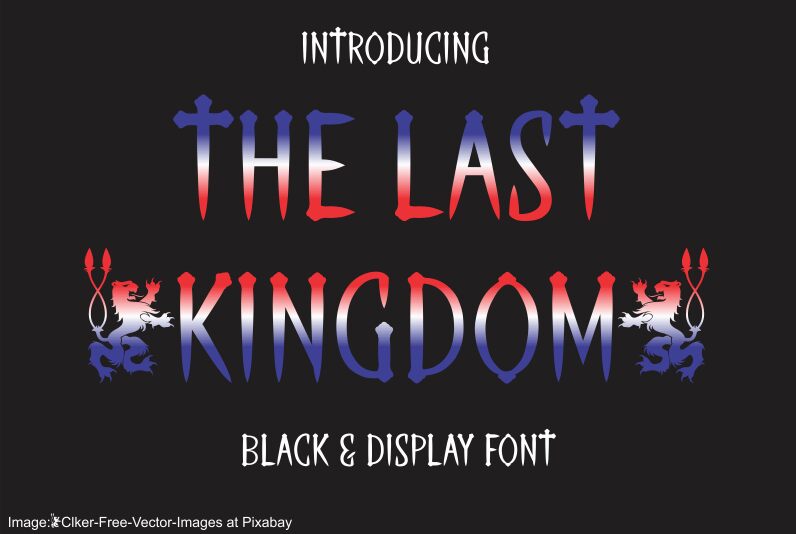
THE LAST KINGDOM
The Last Kingdom font is a condensed gothic typeface designed by Jaime Rangel Castro.
For partial version use [ before and ] after a letter to display the dingbat (Lion image), Example:[KINGDOM]
- Three types of ornaments by using alternates for all glyphs: A+A- ... Z+Z- with Open Type Features or PUA.
- Dingbats by using symbols ^ ~ [] and {}.